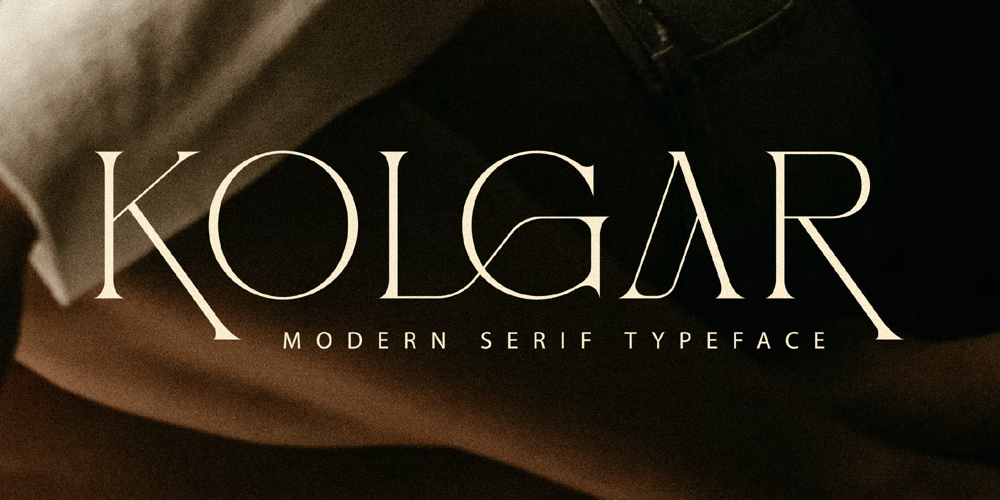
Kolgar
Kolgar font
Kolgar Font Family was designed by Heru Utama Putra and published by Letterena Studios. Kolgar contains 2 styles and family package options. Kolgar is a modern and classy serif font with a modern twist. No matter the topic, this font will be an incredible asset to your fonts’ library, as it has the potential to elevate any creation.